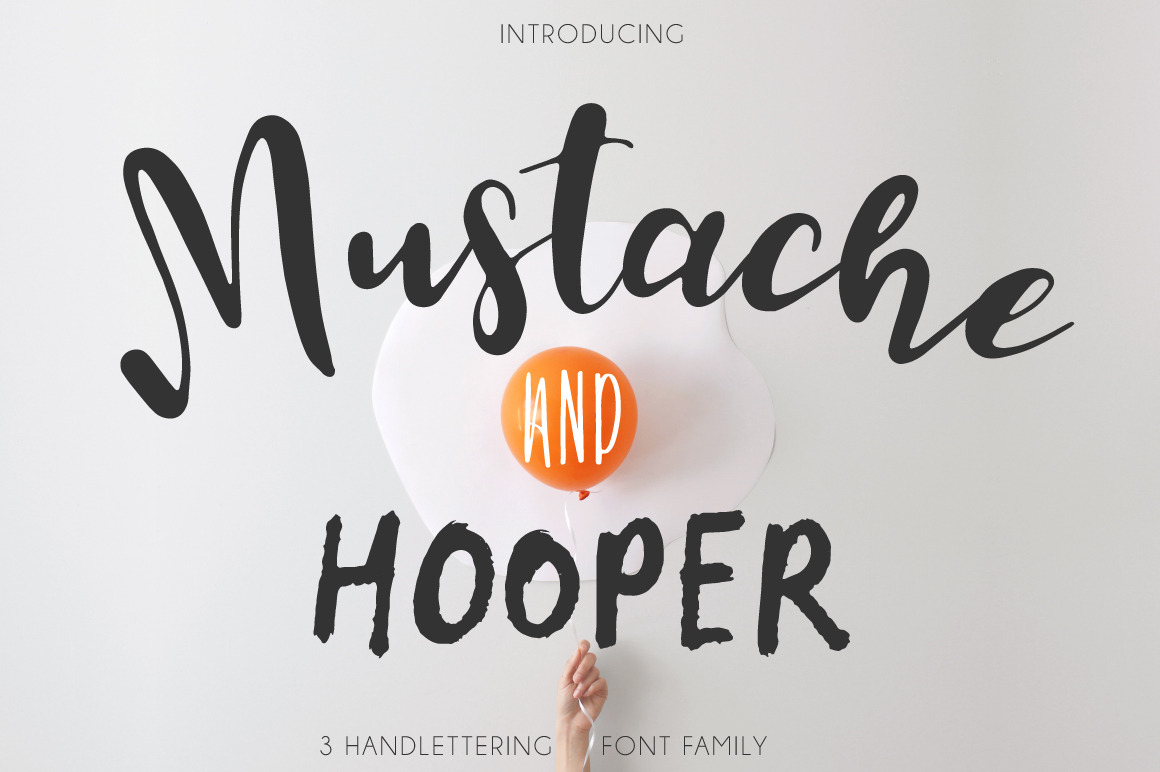
Mustache Pack [3 Fonts]
It is 3 completely different and perfectly combined fonts. Each font looks great as a standalone or in conjunction with another, or all together. This font is ideal for branding and decorate your any project.
This font are perfect for festival posters or your blog. Also with their help, you can create a logo or wedding invitation. Or just use for your small business, book covers, stationery, marketing, magazines and more.
Mustache Pack [3 Fonts]:
- Mustache Font
- Hooper
- Carmensita